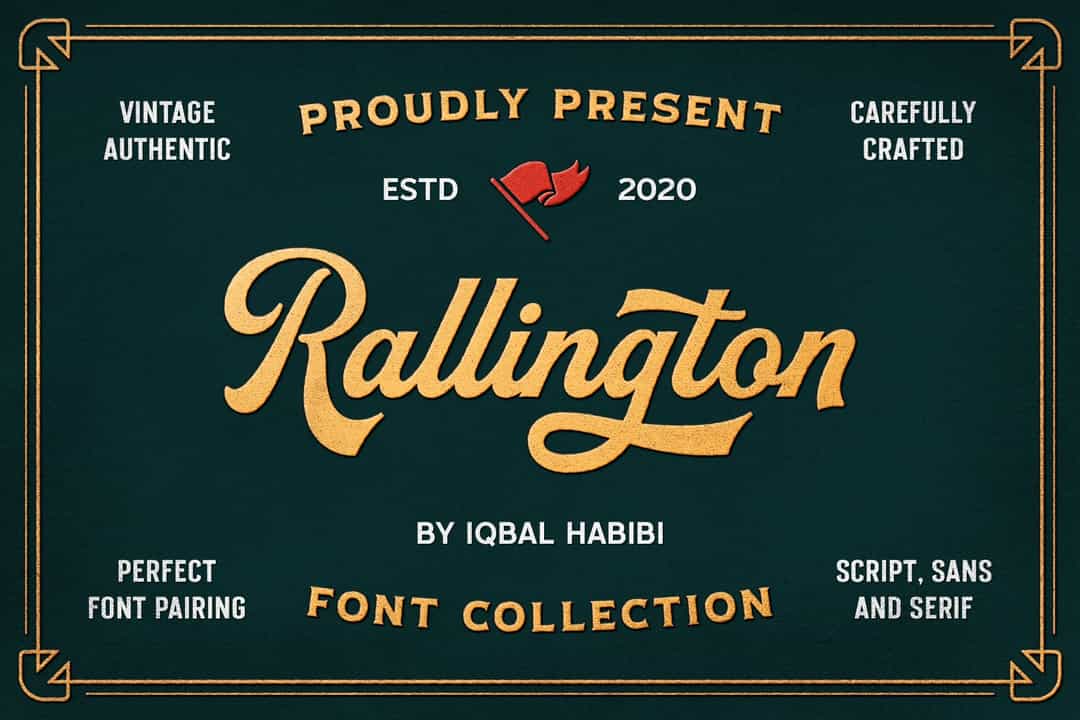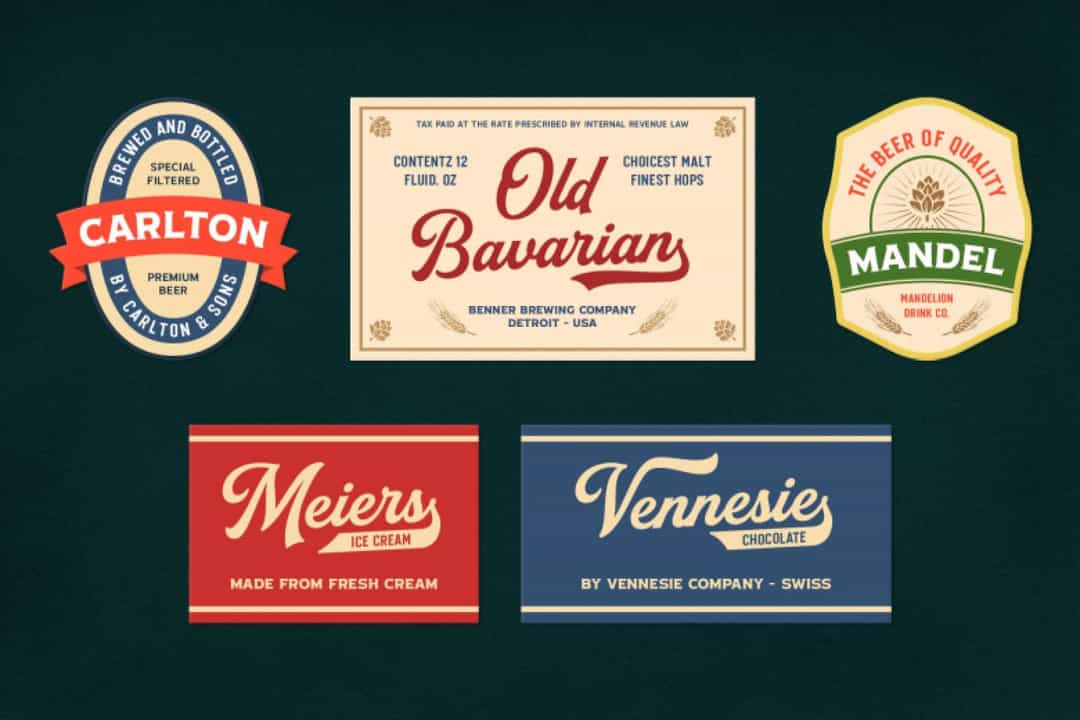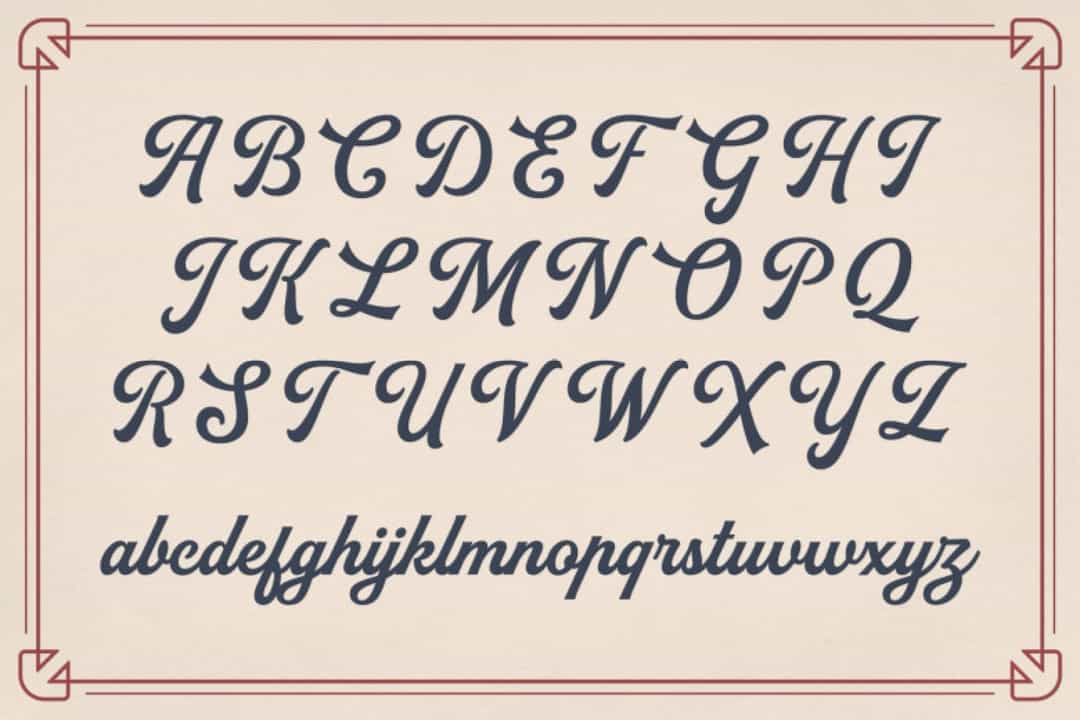
Rallington Font is characterized by vintage looking but elegant script font. Ideal for logos and advertisements and especially for social media posts and packaging, product design labels and posters, photography, T-shirt watermarks, stationery and any other kind of design work, this font can add that extra special touch to any design project.